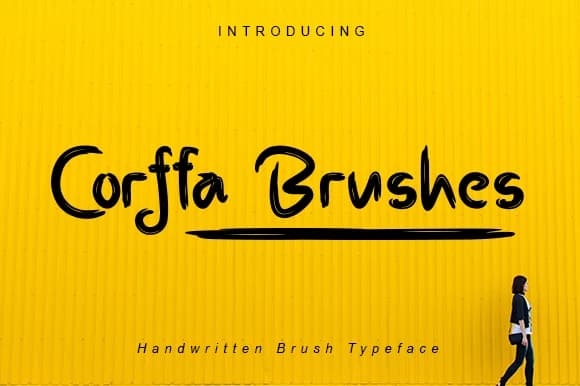
Corffa Brushes has that energetic, handmade feel that immediately catches your eye. Created by damasyp, this script font captures the expressive energy of brush lettering while maintaining a contemporary sense of refinement. The strokes flow with organic rhythm across the letterforms, layering genuine warmth and character into type that might otherwise feel generic or corporate.
You'll find real applications for this on wedding invitation suites where you need personality and elegance working together, or on artisan bakery menus and hand-lettered product labels that deliberately signal human intention. Indie cosmetics packaging thrives with this font's distinctive ability to feel crafted rather than manufactured. Social media graphics get immediate personality from it too, especially for small creative brands and independent designers who want their messaging to feel personal and connected rather than algorithmic and distant. The font comes in multiple weights and styles, including bold and italic versions, giving you room to adjust the visual weight depending on your layout and the role each line needs to play.
Pair Corffa Brushes with a clean, minimal sans-serif for body text and supporting elements, letting the script own headlines and focal points where it shines. It's available on Creative Fabrica whenever you're ready to add this kind of warmth to your designs.
Corffa Brushes Font is a script font that shines as a display or heading face. Pair it with a clean sans-serif or serif font for body text β the contrast creates a clear hierarchy while the two styles stay balanced and easy to read.